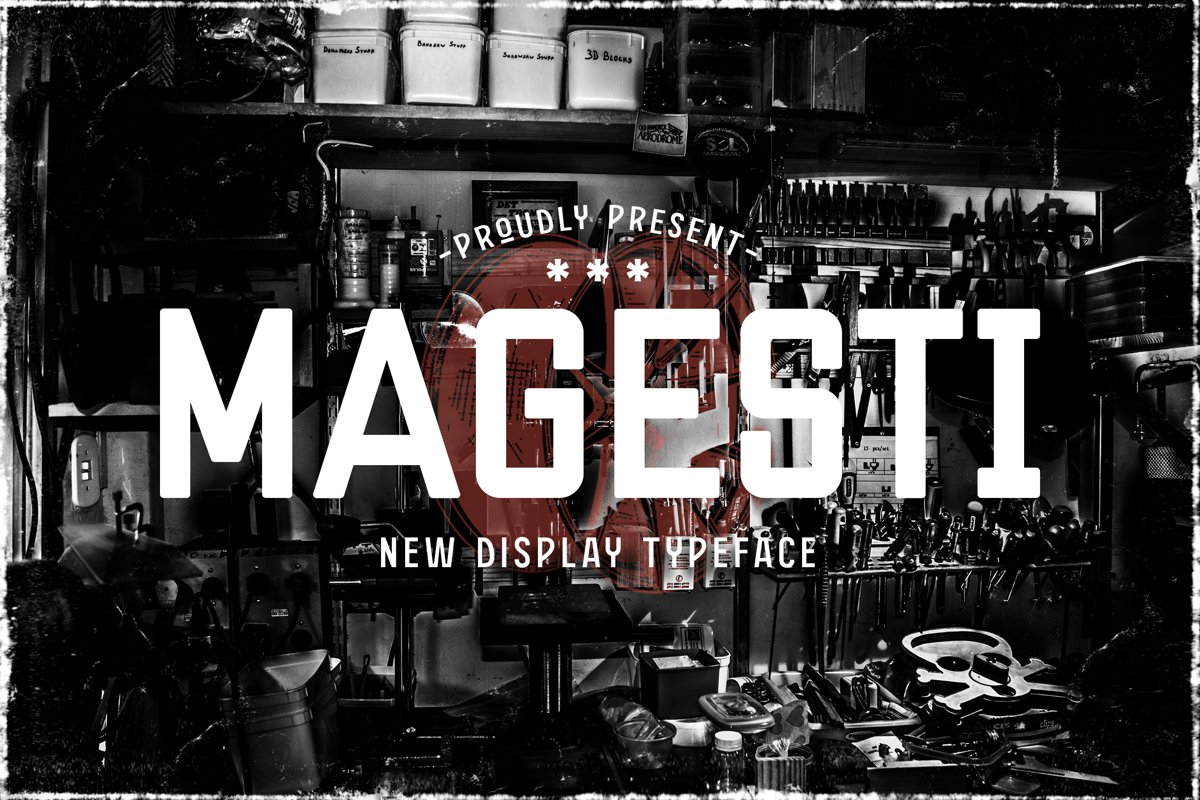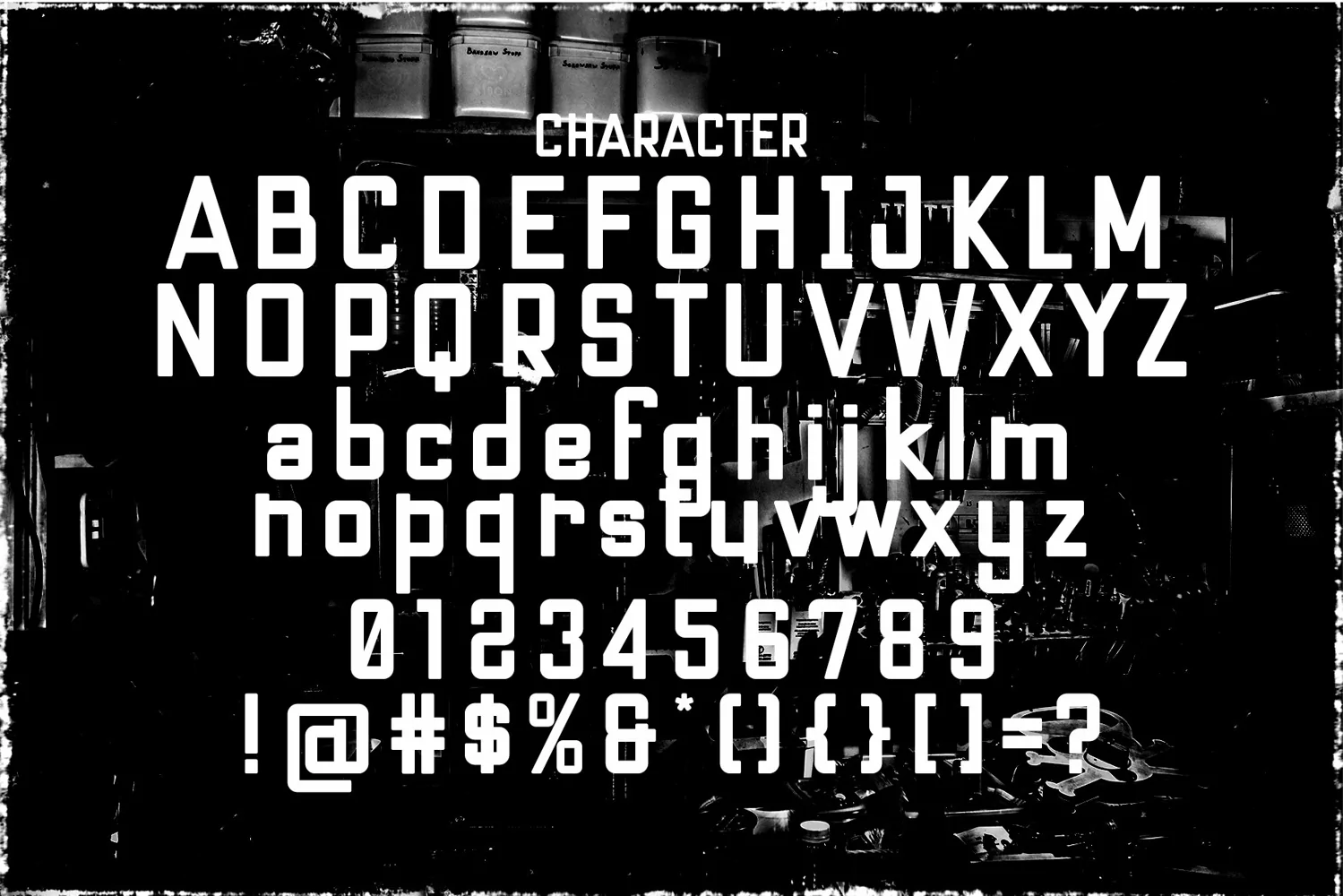
Magesti is a display typeface. Perfect for display, posters, quotes, business card, sports needs, logo, logotype, badges, emblem, header, tittle, merchandise, packaging, and many more.